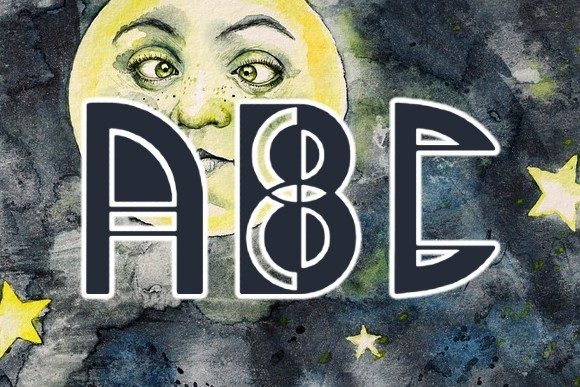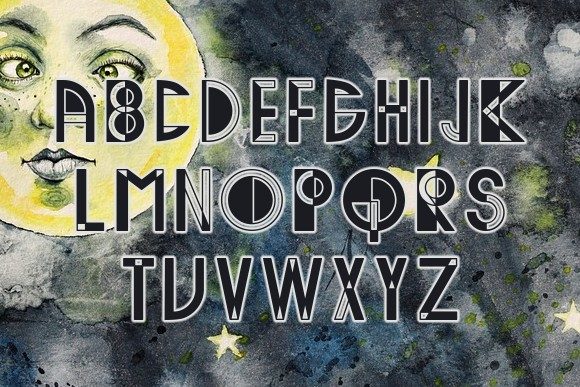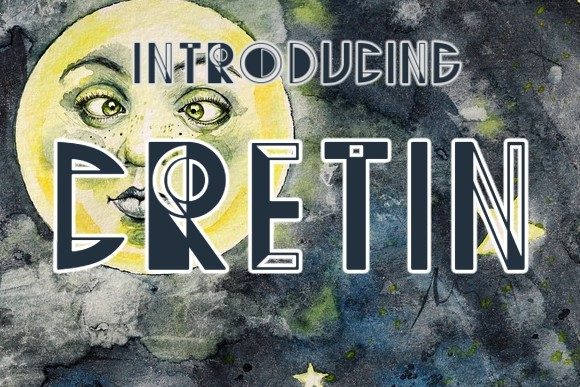
Cretin Font: The Ultimate Geometric Display Font for Creative Minds
Are you tired of using the same old fonts for your designs? Look no further! Introducing Cretin Font, a cool and geometric-looking display font that’s sure to inspire your work. With its unique and modern aesthetic, Cretin Font is perfect for designers and crafters looking to add a touch of sophistication and elegance to their projects.
What is Cretin Font?
Cretin Font is a display font that boasts a geometric design, making it perfect for headlines, titles, and other display text. Its clean lines, precise curves, and symmetrical shapes create a visually appealing aesthetic that’s both modern and timeless. Whether you’re working on a logo, brochure, or website, Cretin Font is sure to make a statement.
Key Features of Cretin Font
• Geometric Design: Cretin Font features a geometric design that’s perfect for creating modern and sleek designs.
• Clean Lines and Curves: The font’s clean lines and precise curves make it easy to read and visually appealing.
• Symmetrical Shapes: The symmetrical shapes used in Cretin Font create a sense of balance and harmony, making it perfect for designs that require a touch of elegance.
• High Versatility: Cretin Font can be used for a wide range of designs, from logos and brochures to websites and social media graphics.
Endless Possibilities with Cretin Font
One of the best things about Cretin Font is its versatility. With its geometric design and clean lines, you can use it for a wide range of designs, including:
• Logos and Branding: Create a professional and modern logo that stands out from the crowd.
• Brochures and Flyers: Add a touch of sophistication to your marketing materials with Cretin Font.
• Websites and Social Media Graphics: Use Cretin Font to create visually appealing headings and titles for your website or social media graphics.
• Posters and Advertisements: Make a statement with Cretin Font and grab the attention of your audience.
Why Choose Cretin Font?
With so many fonts available, why choose Cretin Font? Here are just a few reasons:
• Unique and Modern Aesthetic: Cretin Font offers a unique and modern aesthetic that’s sure to make your designs stand out.
• Easy to Read: The font’s clean lines and precise curves make it easy to read, even at small sizes.
• High Quality: Cretin Font is a high-quality font that’s designed to deliver exceptional results.
Cretin Font is a cool and geometric-looking display font that’s perfect for designers and crafters looking to add a touch of sophistication and elegance to their projects. With its unique and modern aesthetic, high versatility, and ease of use, Cretin Font is sure to inspire your work and help you create stunning designs. So why wait? Download Cretin Font today and explore its endless possibilities!